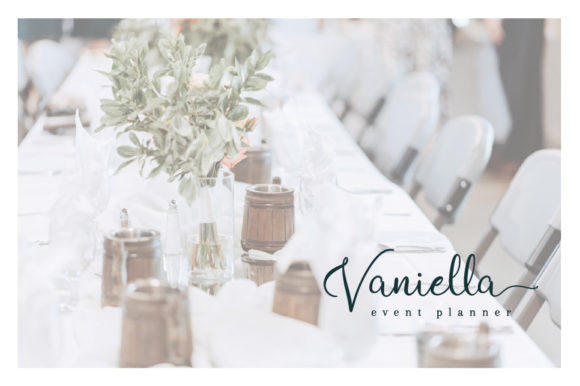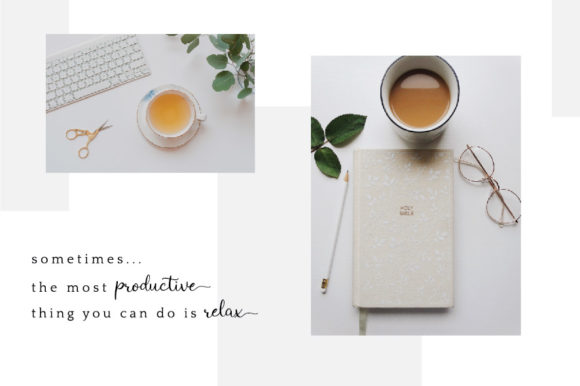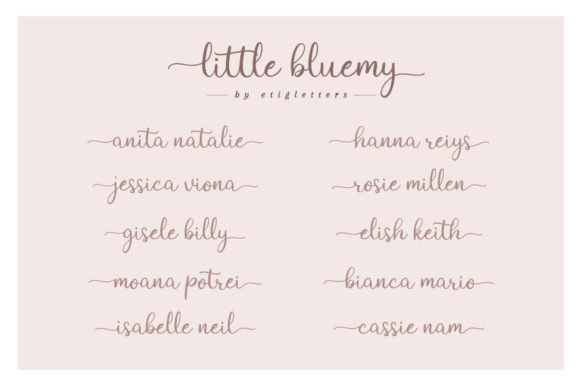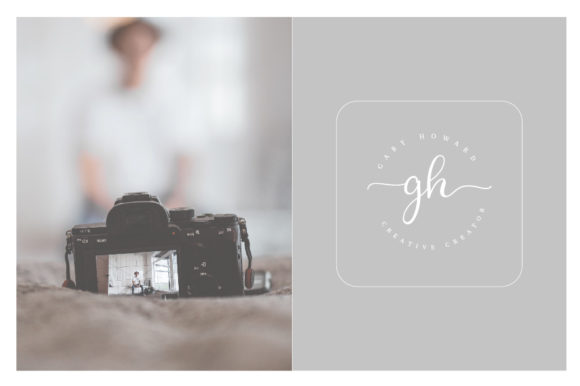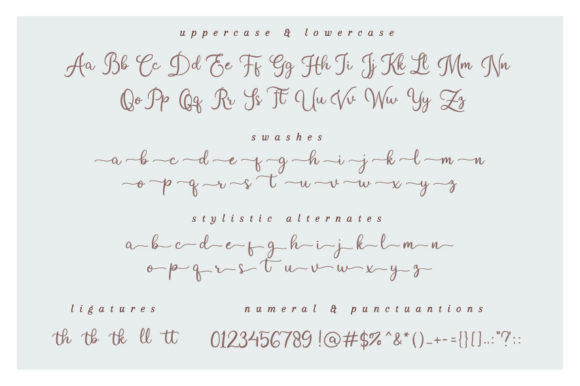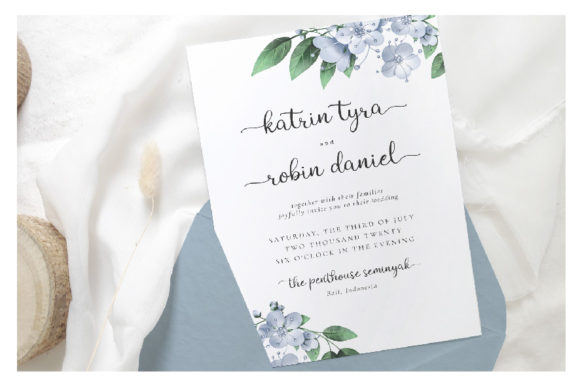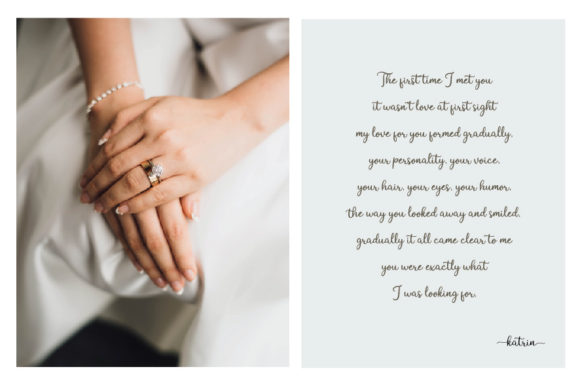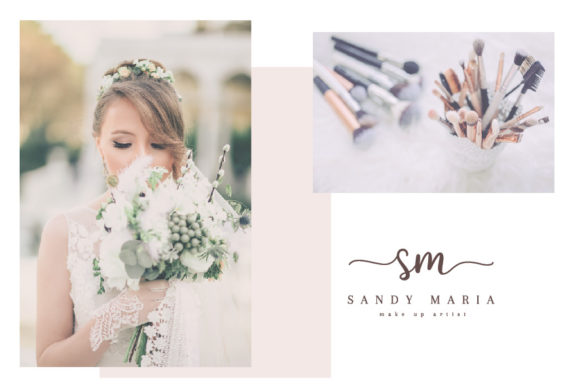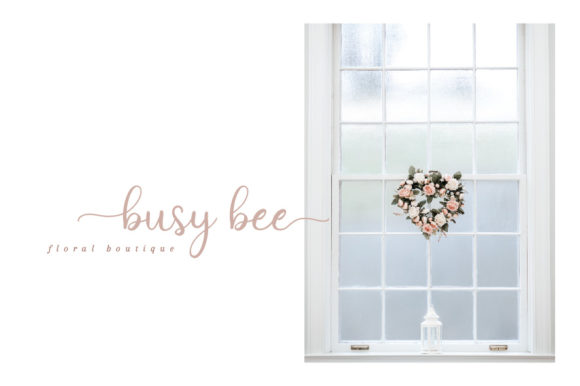
HomeScript FontsLittle Bluemy Font Script Fonts Little Bluemy Font FacebookXPinterestWhatsApp Little Bluemy Font Poster 2 Little Bluemy Font Poster 3 Little Bluemy Font Poster 4 Little Bluemy Font Poster 5 Little Bluemy Font Poster 6 Little Bluemy Font Poster 7 Little Bluemy Font Poster 8 Little Bluemy Font Poster 9 Little Bluemy Font Poster 10 About Little Bluemy Font Little Bluemy is a gorgeous script with a playful feel. Use it to turn any design project into a true standout! DOWNLOAD ON CREATIVE FABRICAThis font is sold and delivered by Creative Fabrica. Font Canyon may earn a commission if you buy through this link. People also explored Honey Donkey Font Solitude Font Wincent Extra Bold Font Sugar Rain Font Bencoleng Font Blahfa Font Honey Lemon Font Amellis Font Riyoos Font 286 0 TagsLittle Bluemy Font Previous articleBrogads FontNext articleDotuku Font LEAVE A REPLY Cancel reply Comment: Please enter your comment! Name:* Please enter your name here Email:* You have entered an incorrect email address! Please enter your email address here Website: Save my name, email, and website in this browser for the next time I comment. Personal Use Free Bolt Electric Personal Use Free Read more about this font Satori Personal Use Free Read more about this font Haris Wood Personal Use Free Read more about this font Farmgarden Personal Use Free Read more about this font BLOG Where to Buy American Fonts Online in 2024 Where to Buy American Fonts Online: The Ultimate Guide for 2024 Looking for the perfect American font to elevate your design projects? You're in the... How to Install and Use Fonts on Windows, macOS, and Web Projects Using Fonts in Digital Marketing: Tips to Strengthen Your Brand Identity To increase your work productivity, choose the most readable fonts.